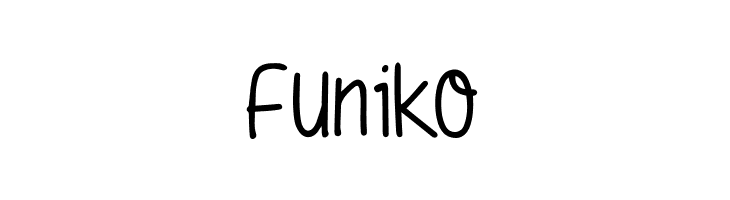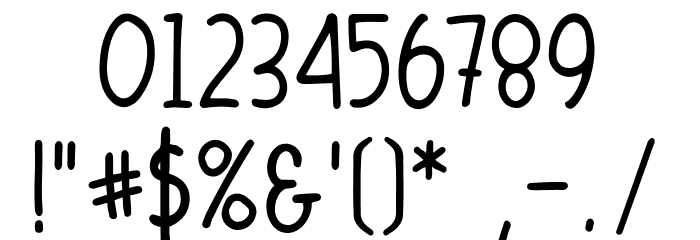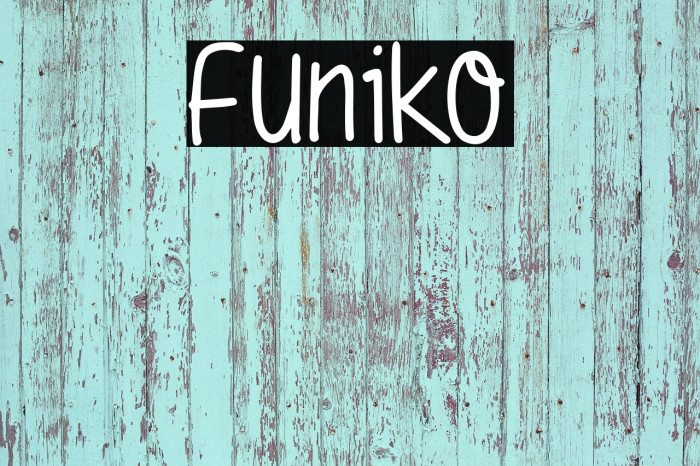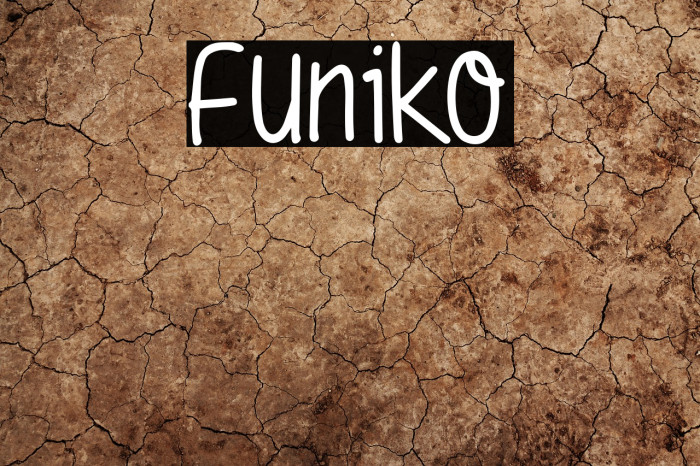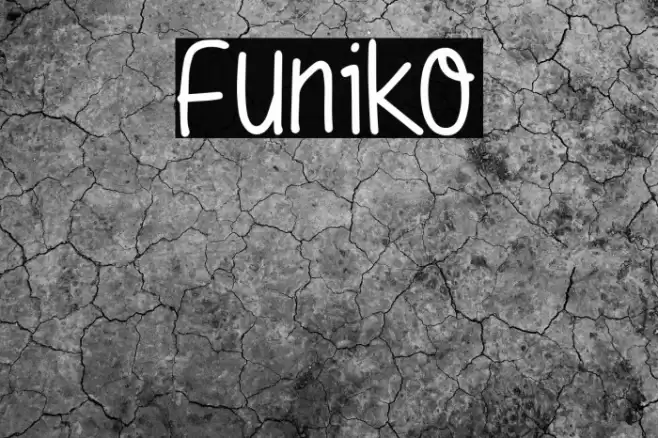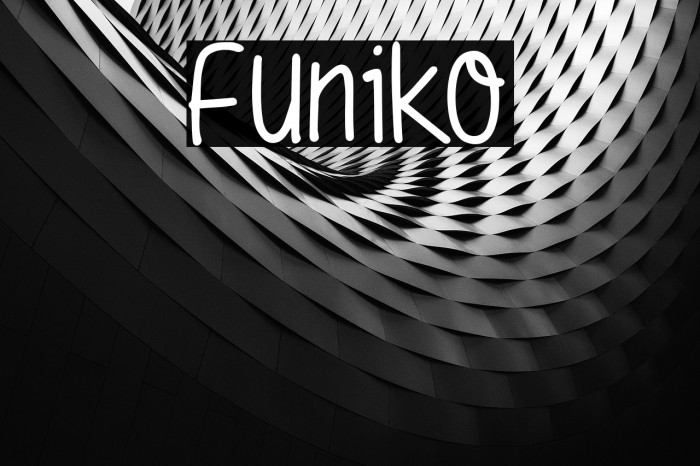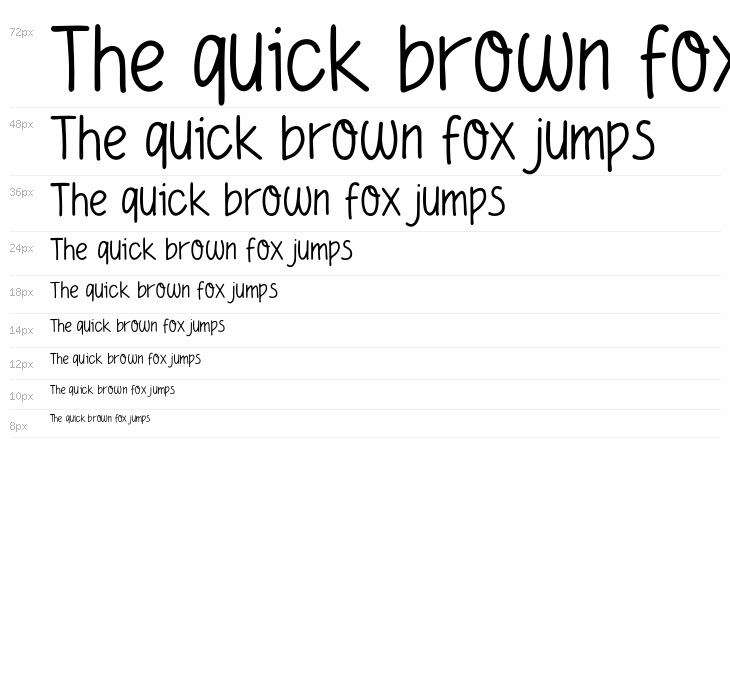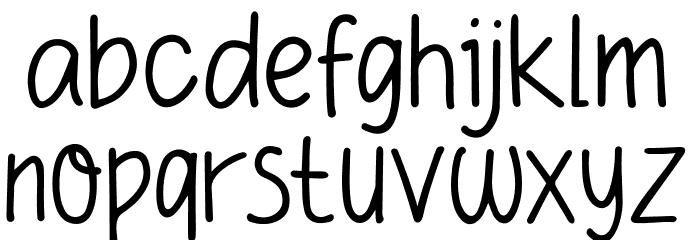
Funiko Font
Funiko Description
This playful and whimsical font features a handwritten style with smooth, rounded edges and a casual appearance. The characters are slightly irregular, adding a personal touch that mimics natural handwriting. The uppercase and lowercase letters maintain a consistent flow, while the numerals and special characters complement the overall style. The font's friendly and approachable look makes it ideal for projects that require a touch of personality and informality.